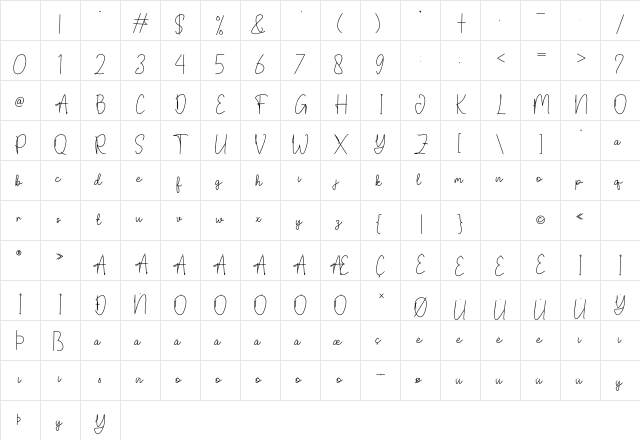
After Daylight is a composed and adaptable typeface that performs quietly and consistently across a wide range of design contexts. Its slender proportions lend an understated elegance to any composition.